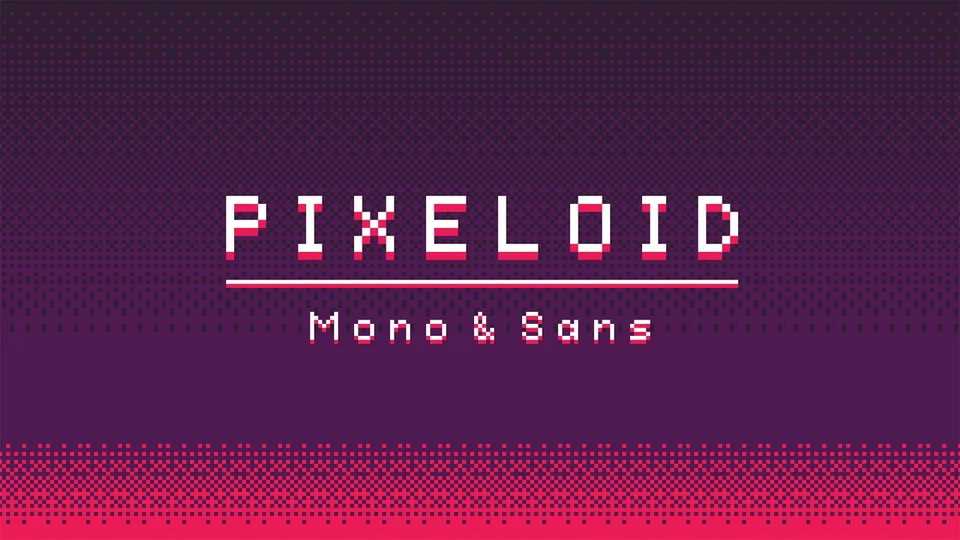
Download Pixeloid font, a pixel typeface inspired by bitmap fonts, fonts from video games. Pixeloid was designed to work at big sizes and display purposes such as branding, headlines, posters and animations.